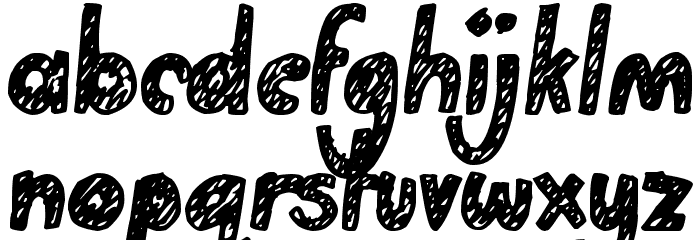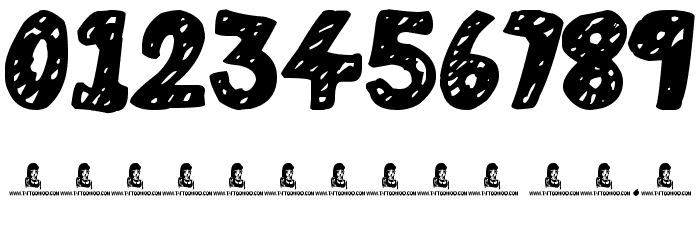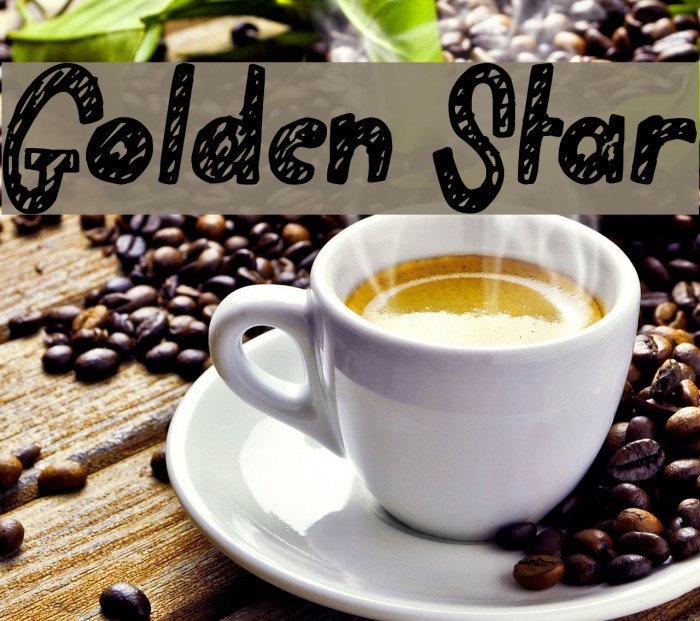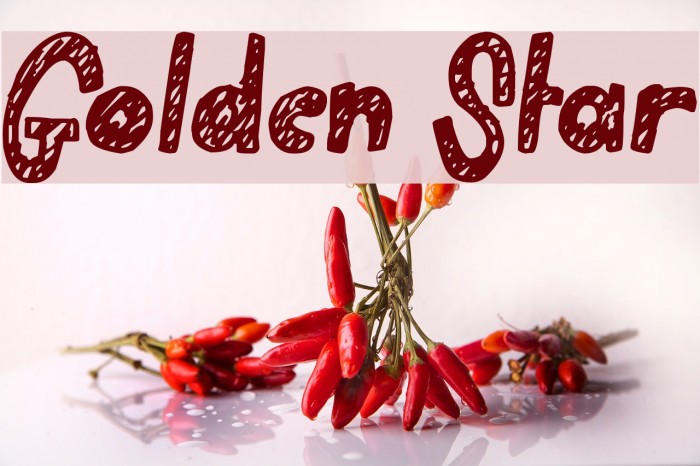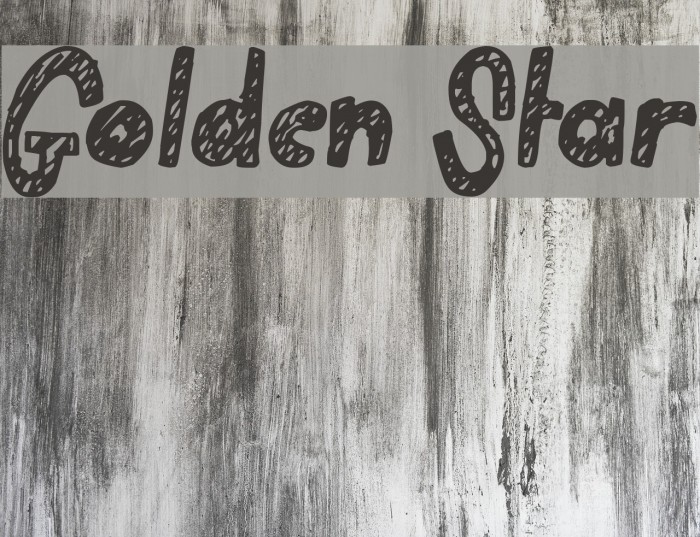
Golden Star Font
This font features a bold, hand-drawn style with a playful and energetic appearance. The letters are filled with a scribbled texture, giving them a dynamic and lively feel. The uppercase and lowercase characters maintain a consistent style, with rounded edges and a slightly irregular form that adds to the casual aesthetic. The numbers and special characters follow the same design, ensuring a cohesive look across all elements. This font is ideal for projects that require a fun and informal touch, such as children's books, playful branding, or creative posters.
A bold, hand-drawn font with a playful, scribbled texture.
- Font: Golden Star
- Proposed Projects: Children's books, playful branding, creative posters, informal invitations.
- Overall Style: Playful, Energetic, Casual